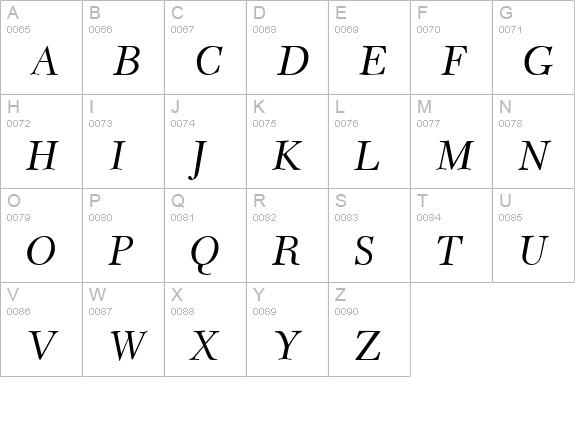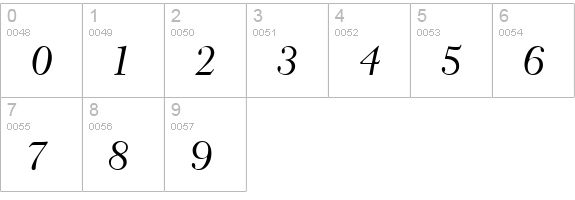
Camelia Italic Font Details
Camelia Italic is a distinctive, italic variant in the Camelia typeface family \xE2\x80\x94 well suited to design and typography projects.
Camelia Italic font is a stylish and elegant typeface that exudes sophistication and charm. With its graceful curves and delicate serifs, this font is perfect for adding a touch of class to your designs. Whether you're working on invitations, branding materials, or editorial projects, Camelia Italic will elevate your work to the next level. And the best part? Camelia Italic font is completely free! You can easily download this exquisite typeface at FontsMarket.com and start using it in your projects right away. Don't miss out on this fantastic opportunity to enhance your designs with the beauty of Camelia Italic font.